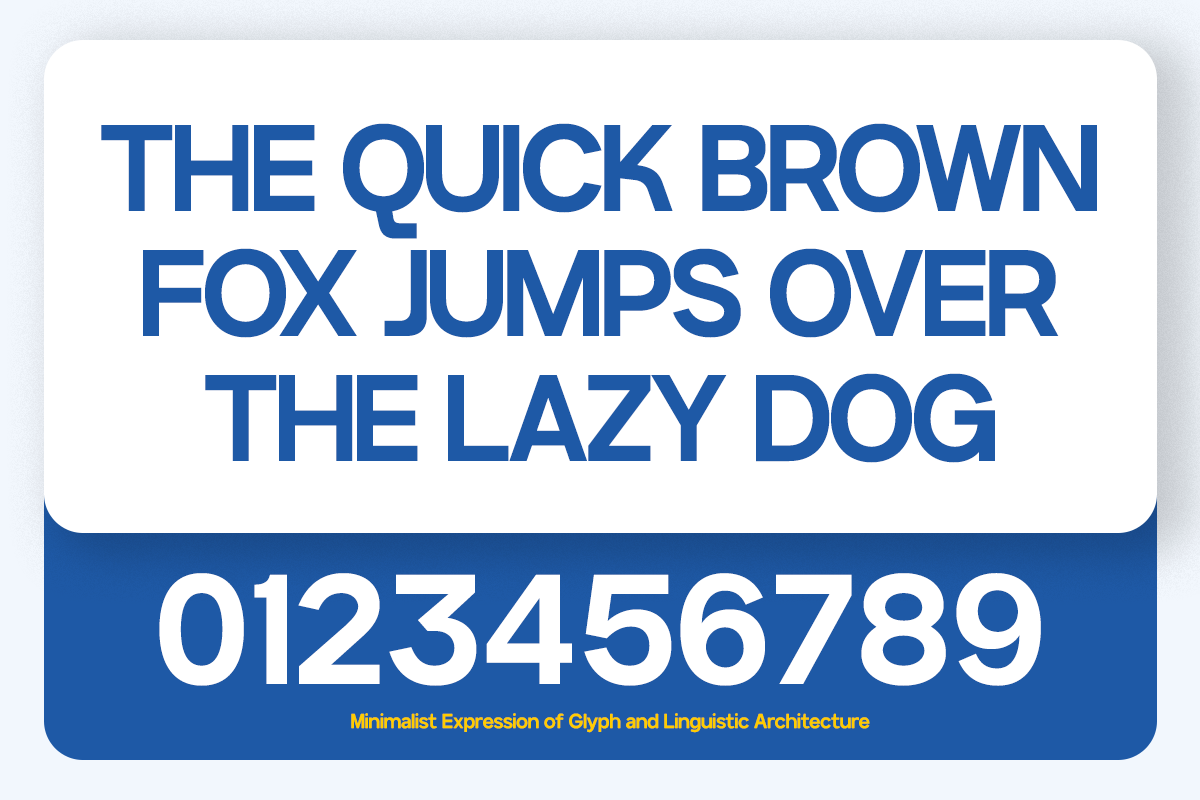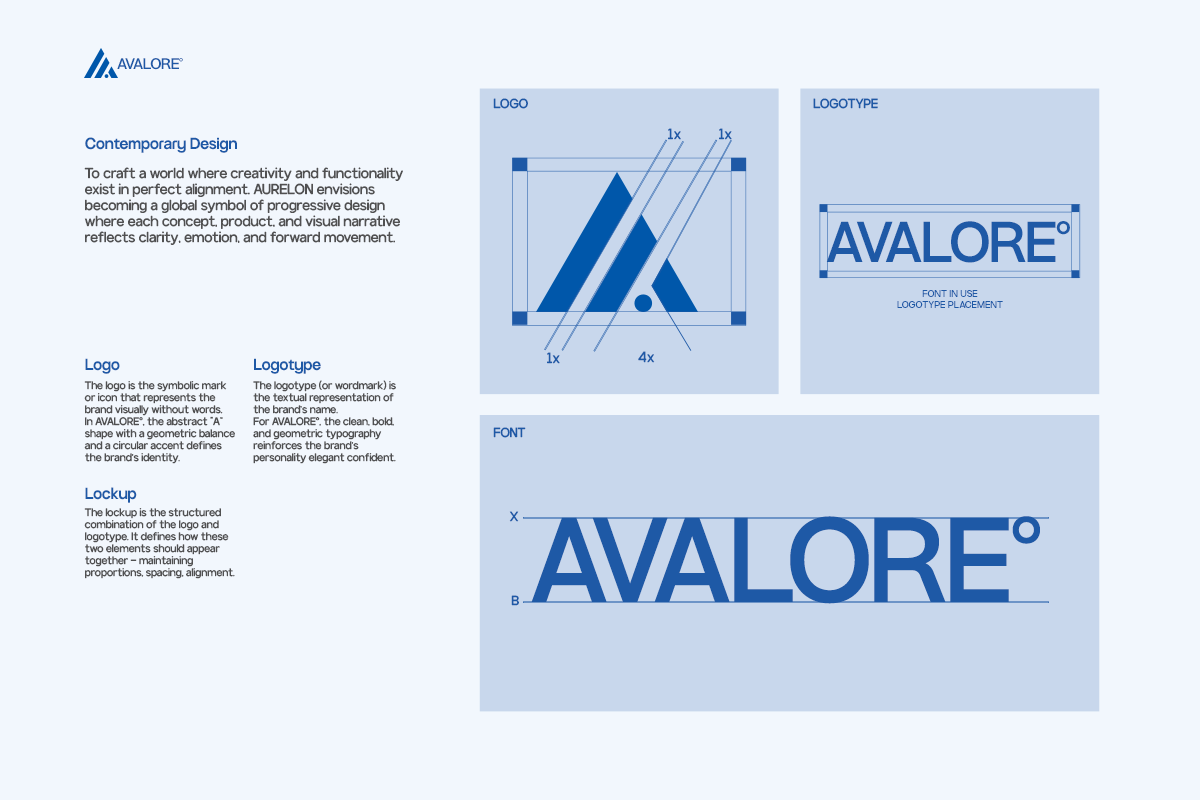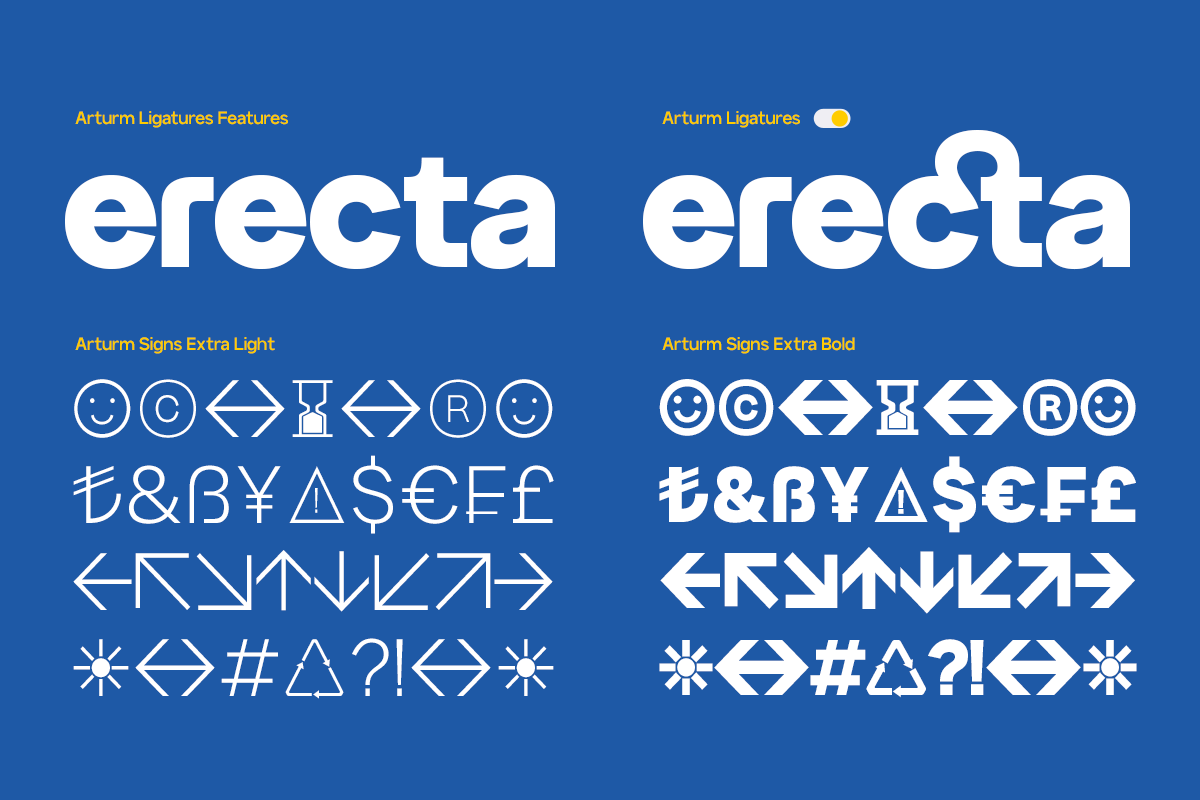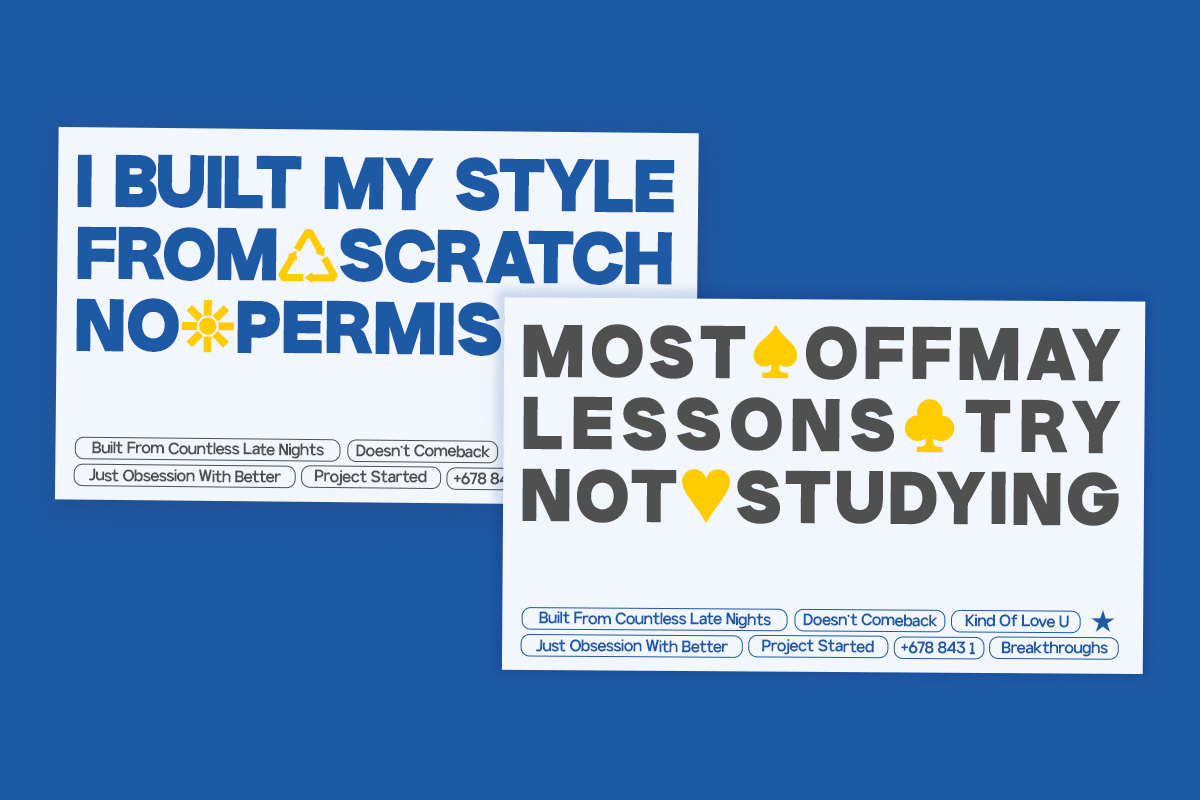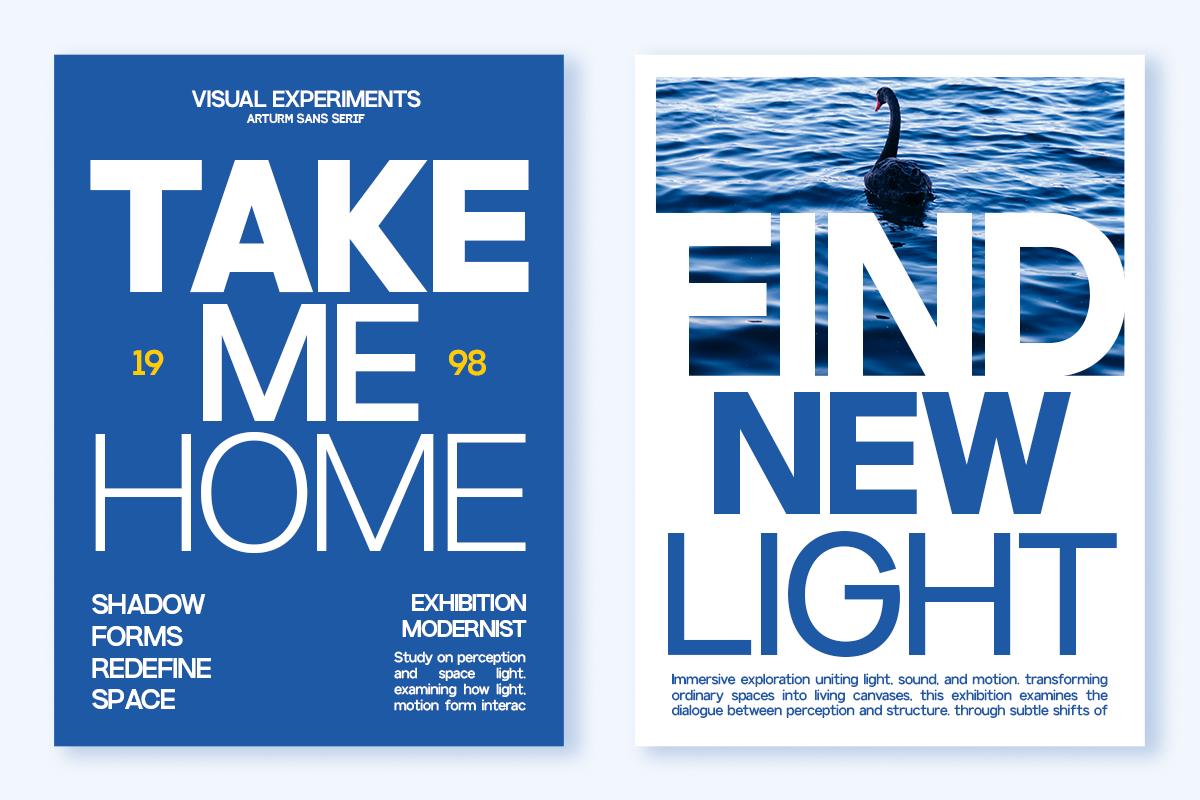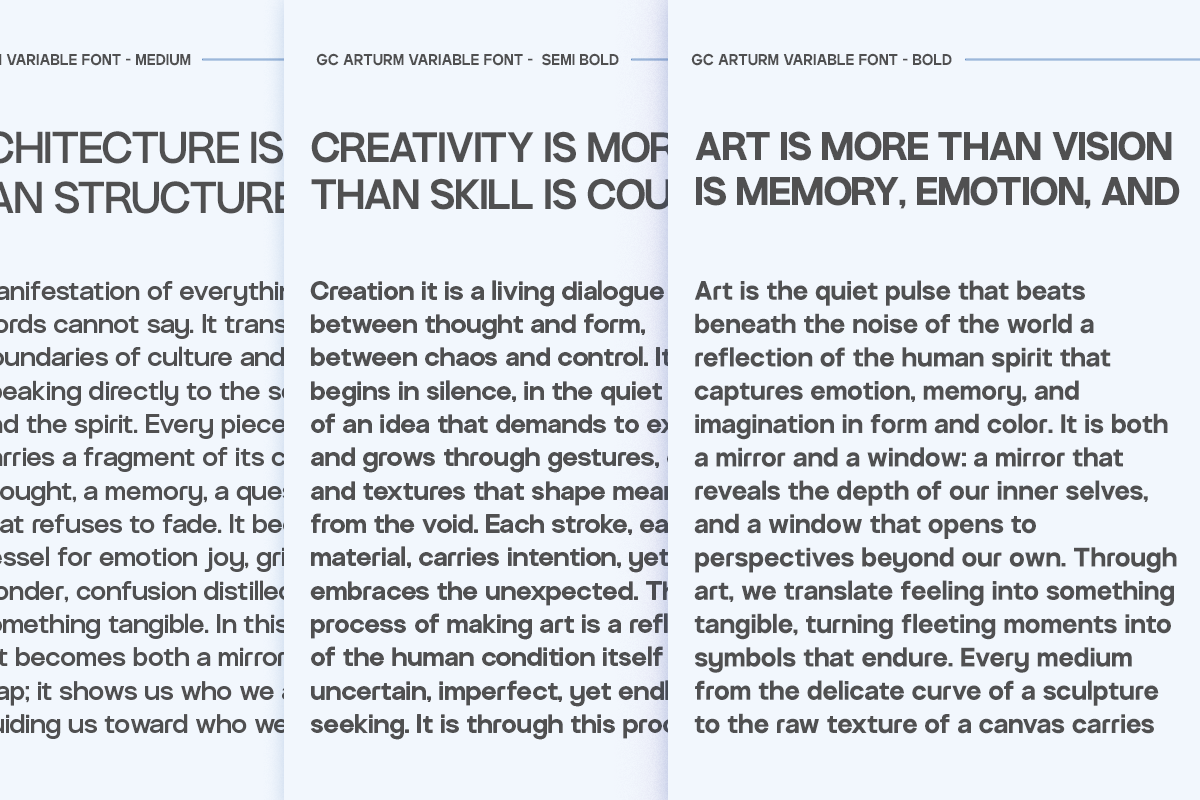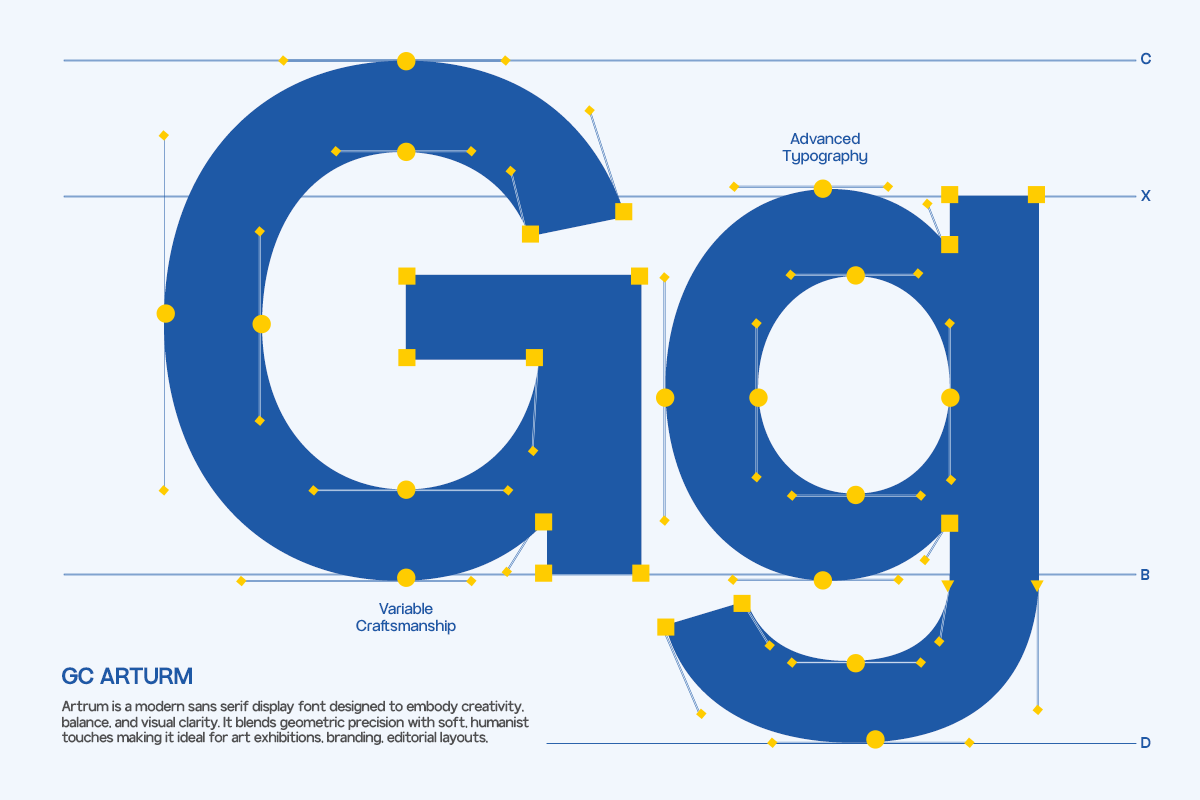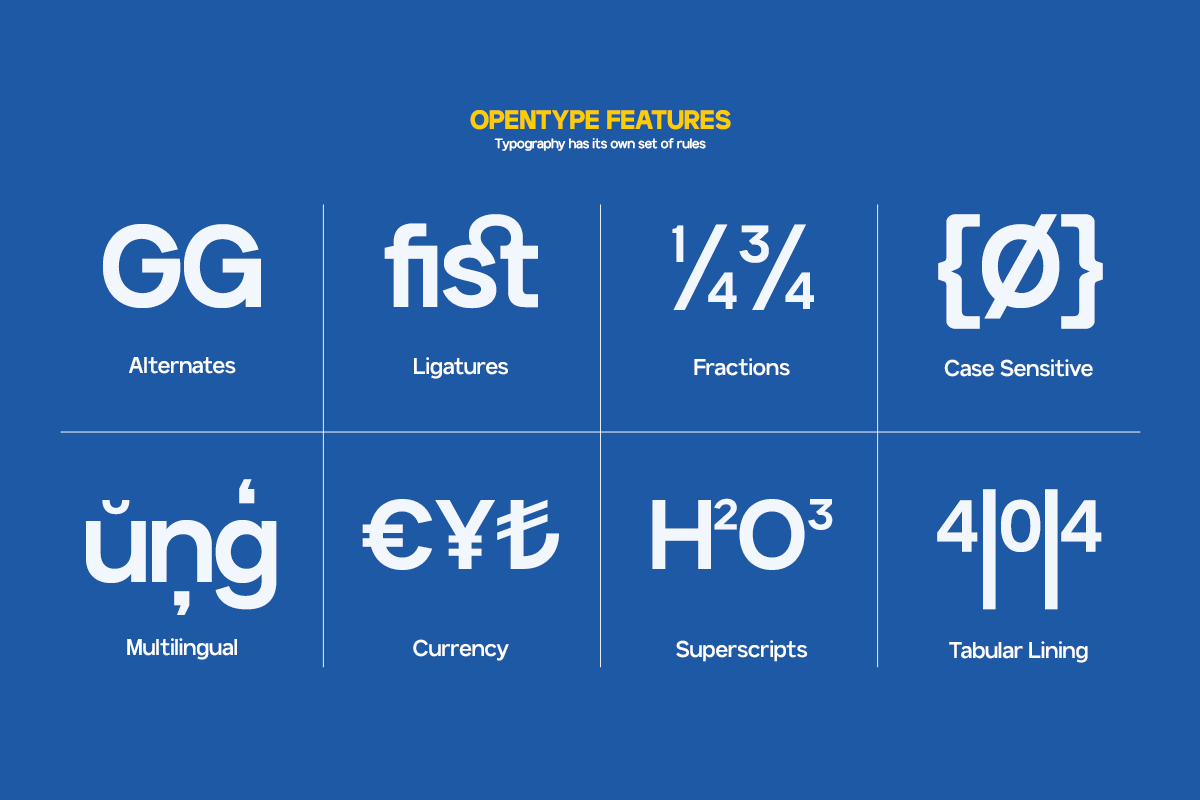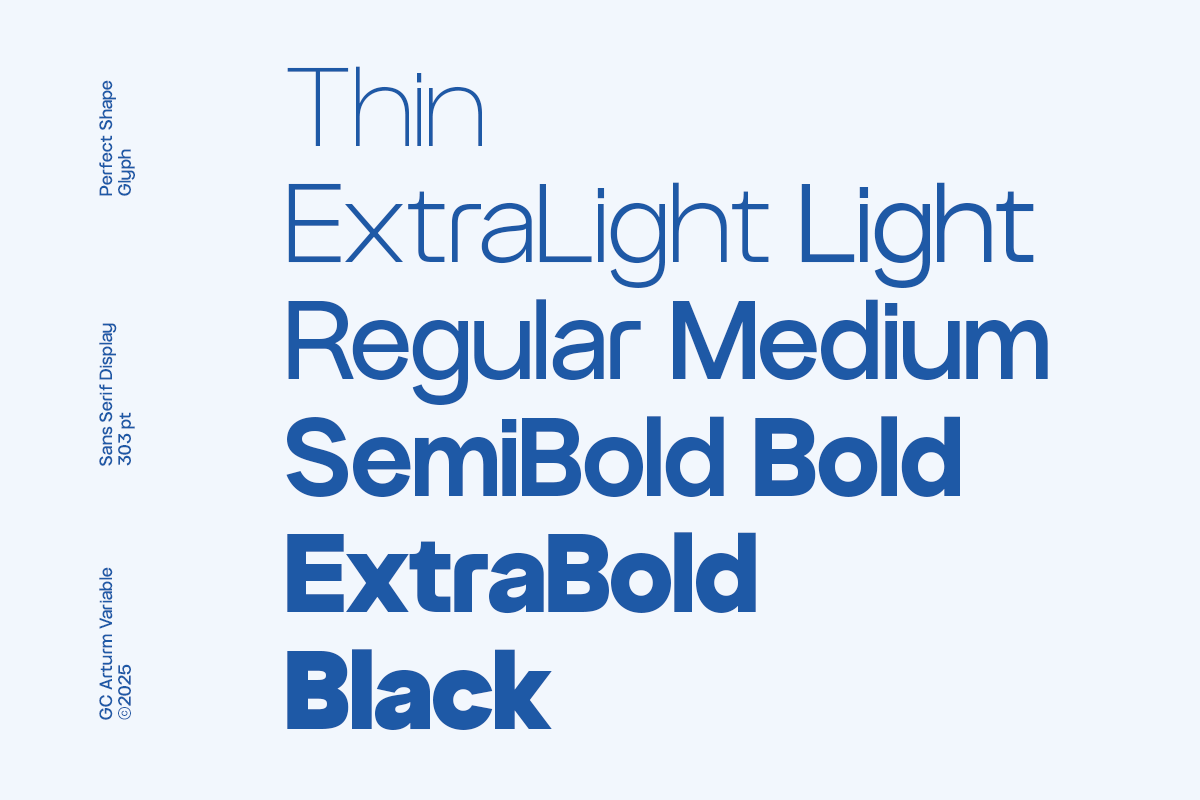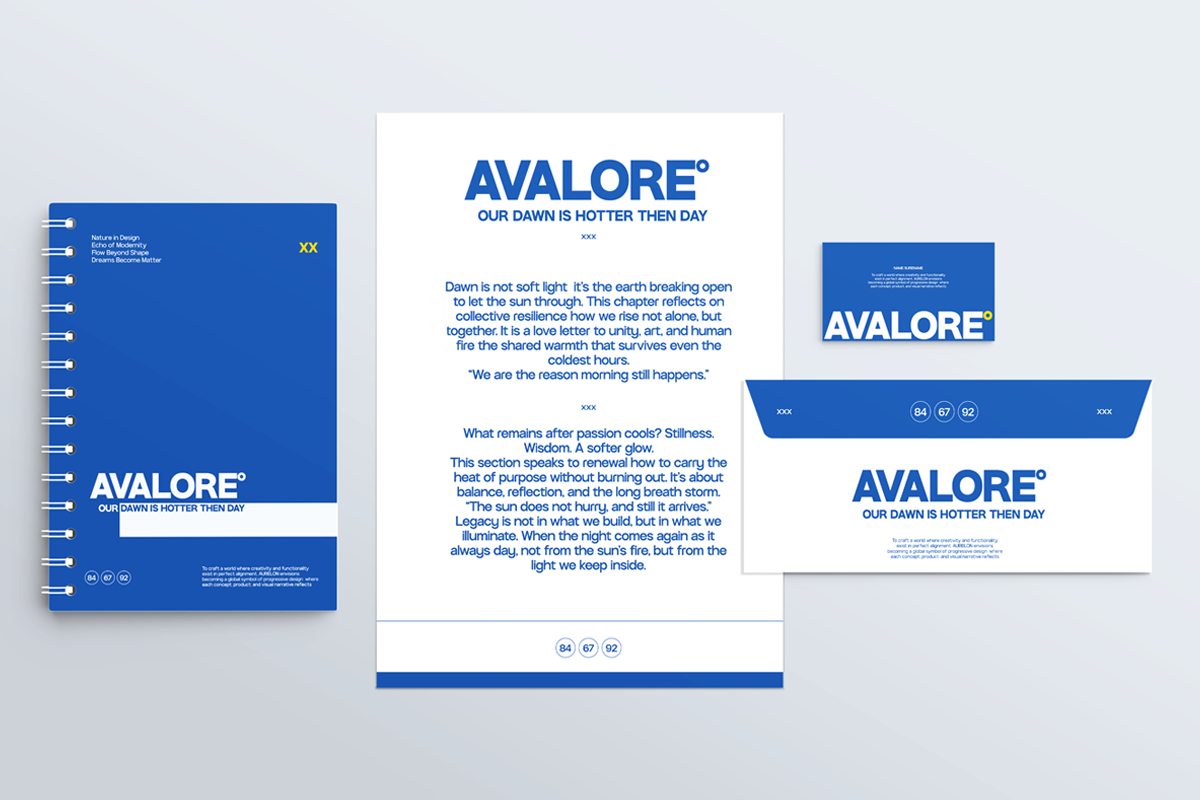
GC Arturm – Modern Variable Sans
GC Arturm – Modern Variable Sans is a versatile sans serif typeface designed with precision, balance, and clarity in mind. Built as a variable font, it offers seamless flexibility across multiple weights — from Thin to Black — giving designers full control over tone and expression. Its clean geometry and refined simplicity create a modern aesthetic that adapts effortlessly to any visual context.
Perfect for branding, user interfaces, motion graphics, editorial layouts, and corporate design, GC Arturm delivers a confident and contemporary presence. Each character is crafted for optical harmony, ensuring legibility and visual consistency across every weight and size.
- Variable Font (Thin–Black)
- Modern Geometric Construction
- Multilingual Support (170+ Languages)
Bring flexibility, precision, and modern clarity to your design with GC Arturm – Modern Variable Sans.